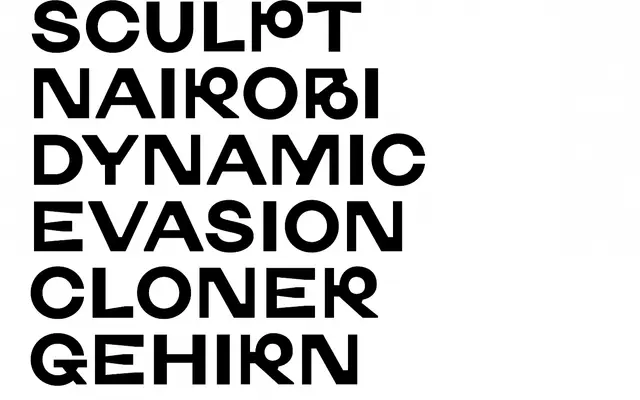
MKNM
Studio Triple · 2020
A work-in-progress experimental display typeface from Studio Triple, released in 2020 under the descriptor 'Brutal Clones'.
Listed on Studio Triple's site under the label 'Brutal Clones', MKNM appears to be an experimental display project dating from 2020. The page content is sparse, suggesting the typeface remains in a work-in-progress state. Little can be verified about its weights, character set or intended use without further documentation from the foundry.
Classified as display due to its experimental, work-in-progress nature implied by the minimal page content; the 'Brutal Clones' descriptor suggests an unconventional, rough-edged aesthetic rather than a text typeface.